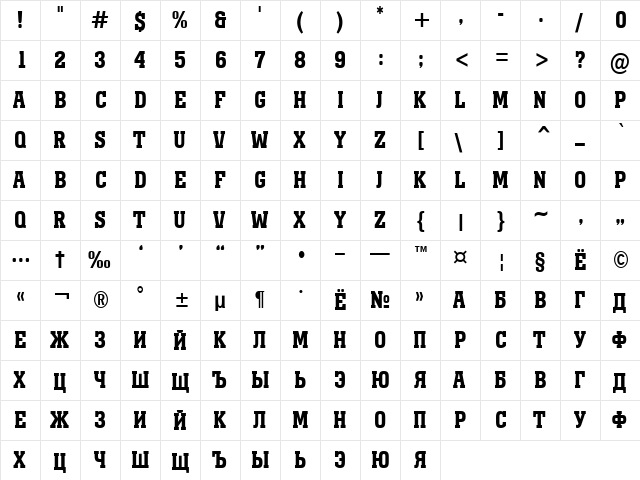
a_MonumentoTitulNr Bold
Design Context for a_MonumentoTitulNr Typeface
a_MonumentoTitulNr offers clean, dependable letterforms without strong stylistic allegiance, making it a practical choice for designers who need flexibility. The heavy weight commands attention and anchors typographic hierarchies.